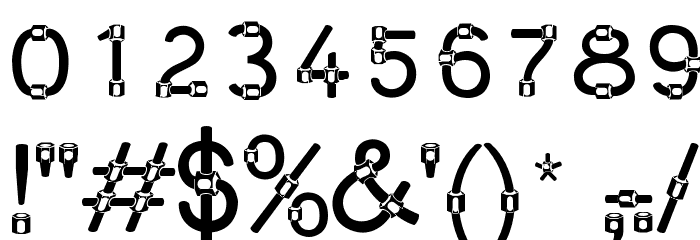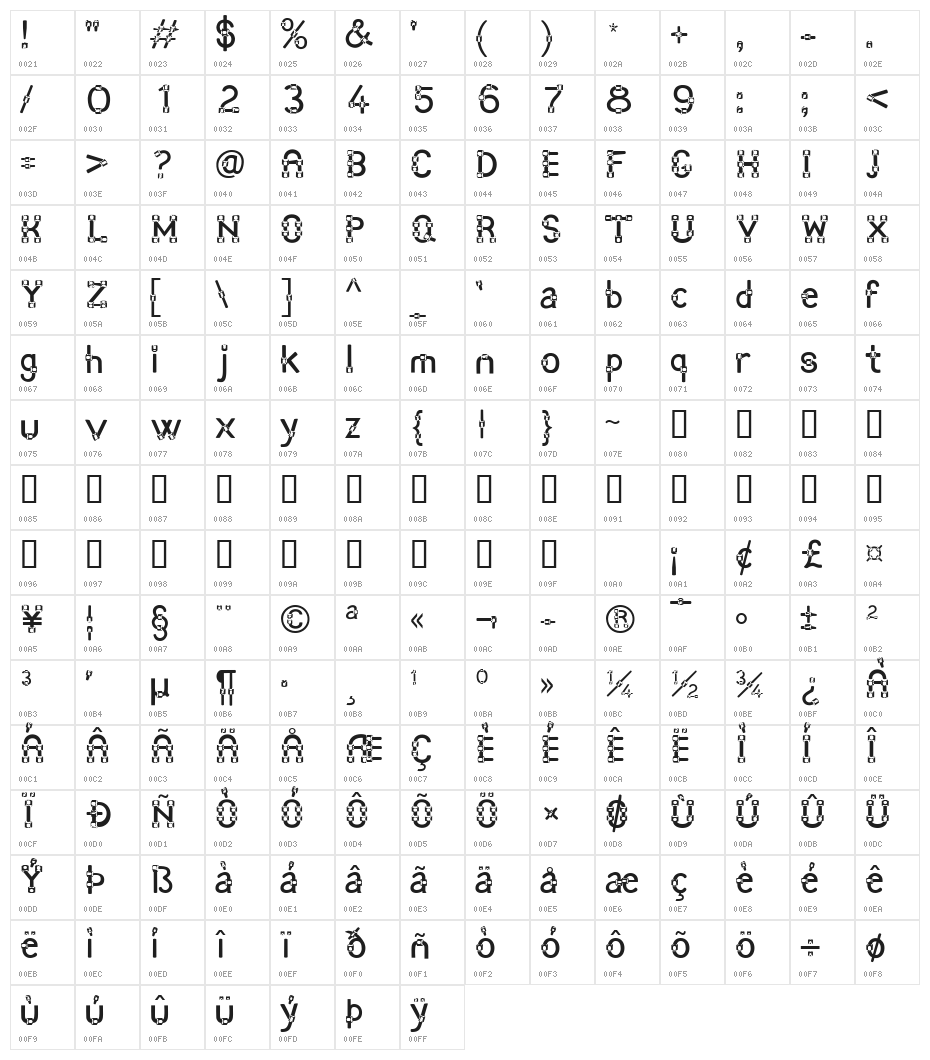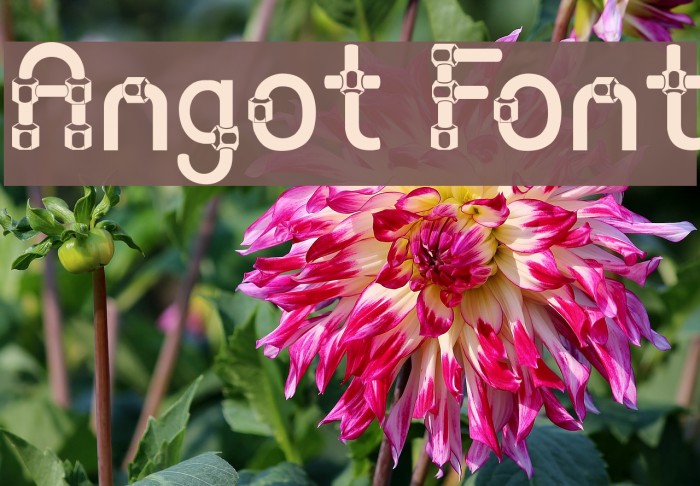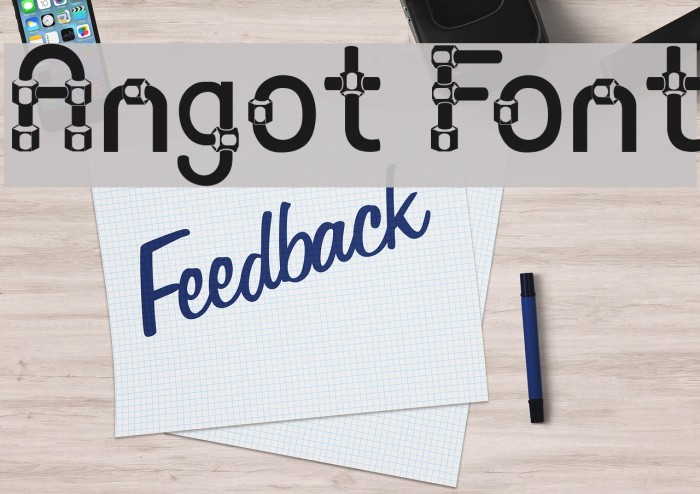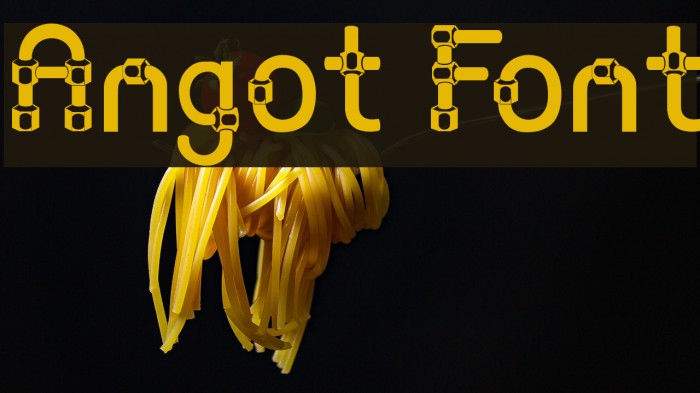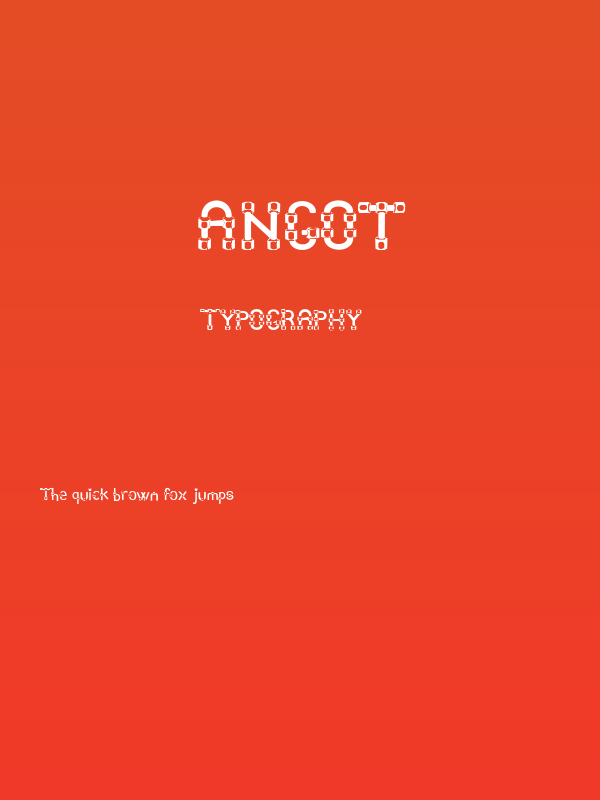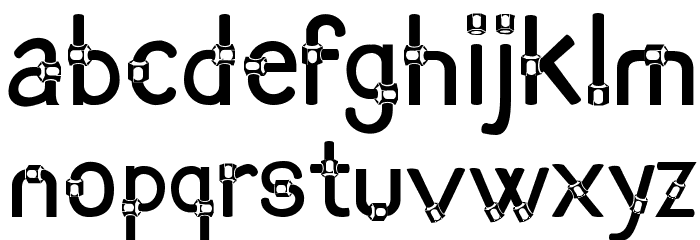
Angot Font
Angot Description
This font features a unique and playful design with a modern twist. Each character is constructed with a bold, geometric style, incorporating rounded edges and square elements that create a distinctive, almost pixelated appearance. The uppercase and lowercase letters maintain a consistent style, with the uppercase being slightly more angular. The numbers and special characters follow the same design principles, ensuring a cohesive look across all glyphs. This font's bold and quirky nature makes it stand out, offering a fresh take on traditional typography.
| Proposed Projects | Ideal for creative projects such as posters, digital art, branding, and any design requiring a modern, playful touch. |